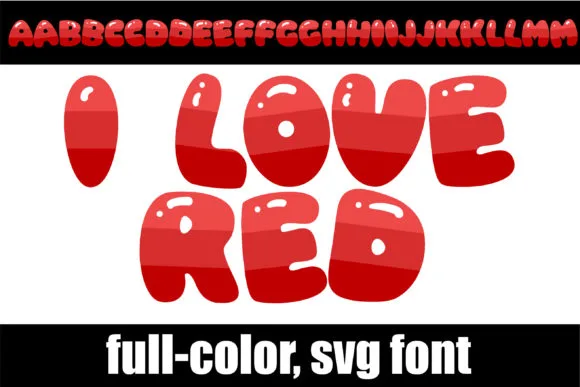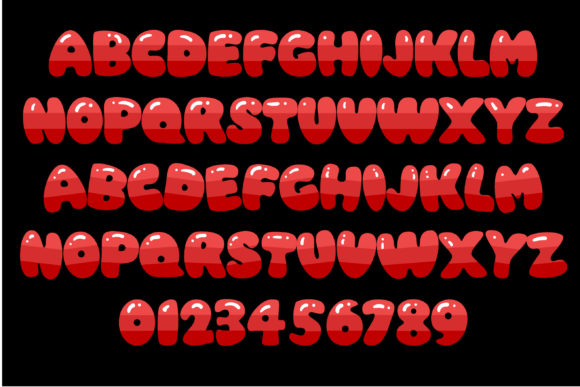
About I Love Red Font
This creative full-color bubbly lettering font in a trio of reds is a vibrant and eye-catching choice for your design projects. With its playful and energetic style, it brings a burst of personality and liveliness to your typography.
The trio of reds in this font adds a dynamic and striking visual impact. You can use this font to create attention-grabbing headlines, logos, posters, social media graphics, and more. Let your creativity flow and experiment with different sizes, colors, and compositions to bring your design ideas to life.
Embrace the lively and bubbly nature of this font to add a sense of fun and energy to your projects. Whether you’re working on digital designs, print materials, or any other creative endeavor, this font will surely make your typography stand out.